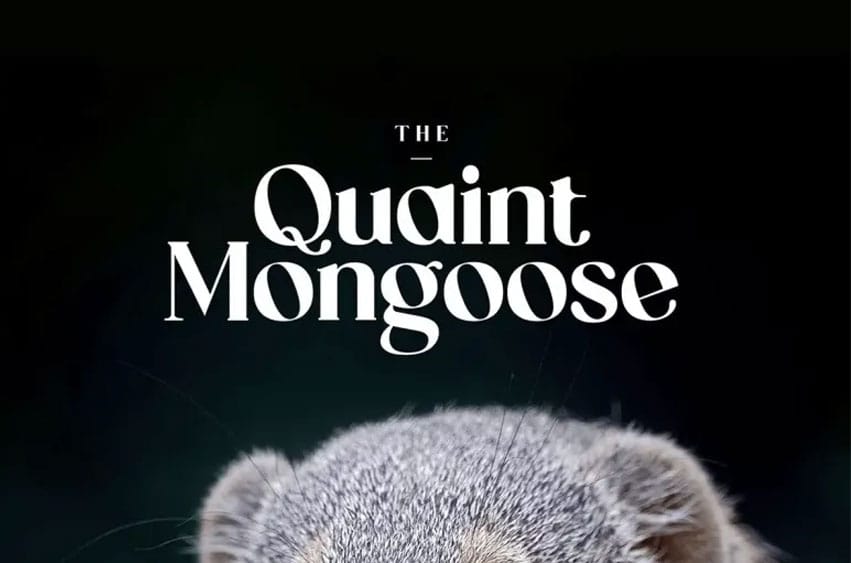
The Quaint Mongoose Font is an exceptional show serif typeface. With its distinct and appealing appearance, combining classic aesthetics with contemporary design elements. Furthermore, with its eccentric letterforms that add flair and individuality to any design project, The Quaint Mongoose adds character and adds some fun into any design project.
If you’re designing retro posters, vibrant logos, or captivating headlines this font will bring a nostalgic feeling and delight viewers. Revel in its charming character of The Quaint Mongoose to add its distinctive character into all of your projects.